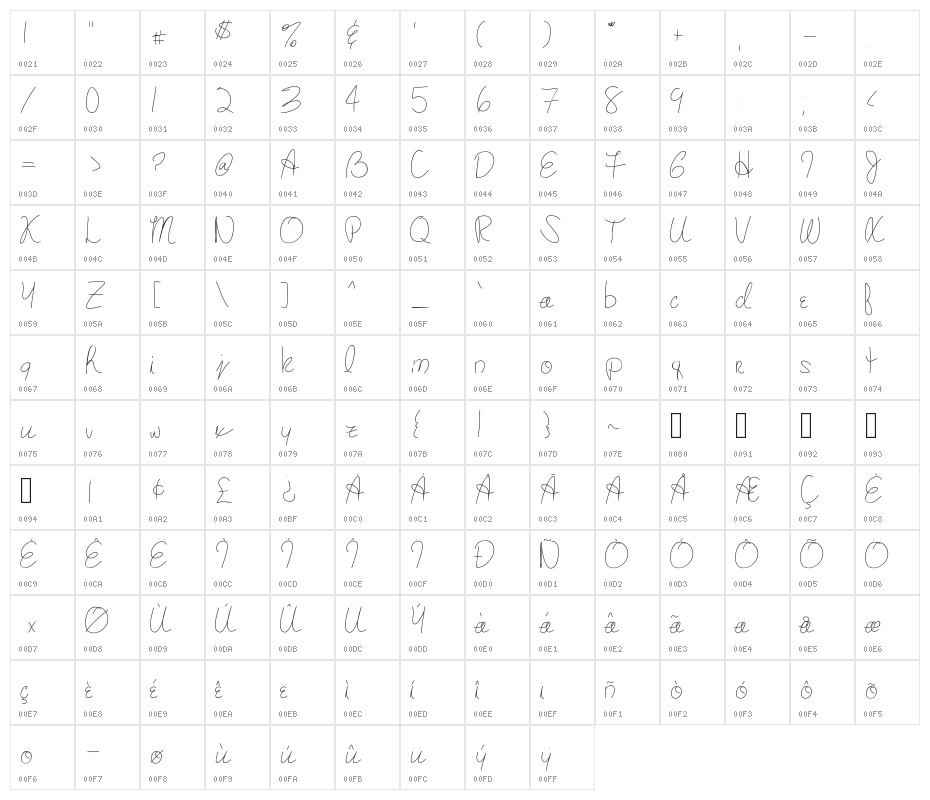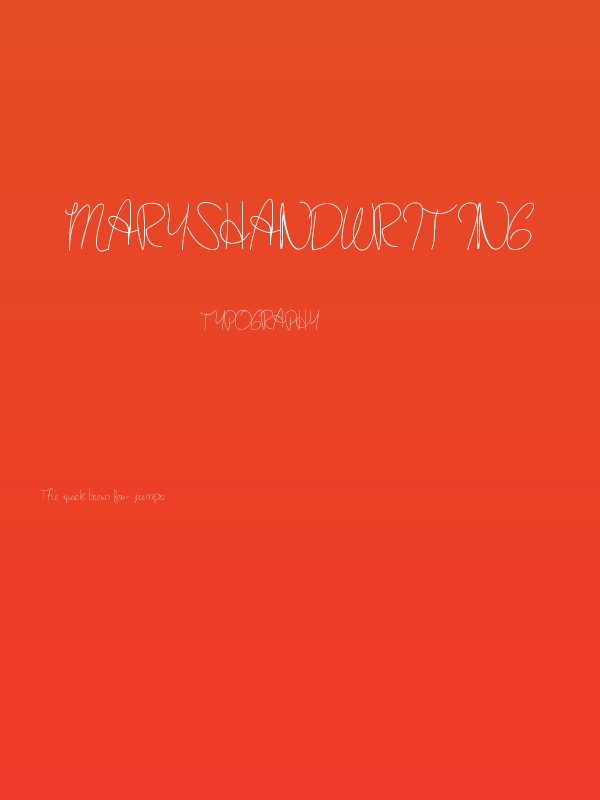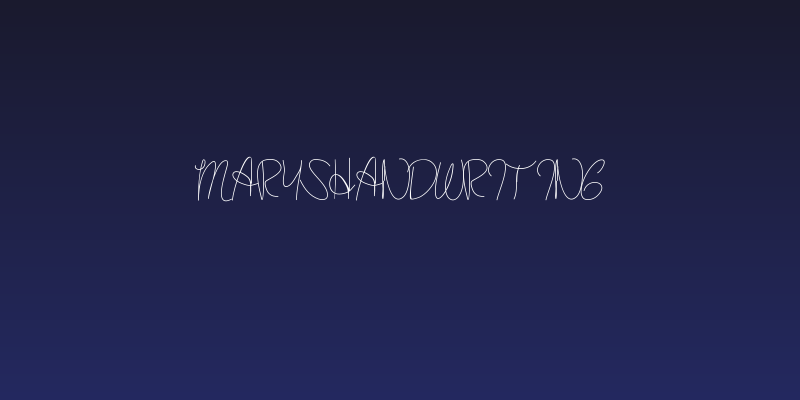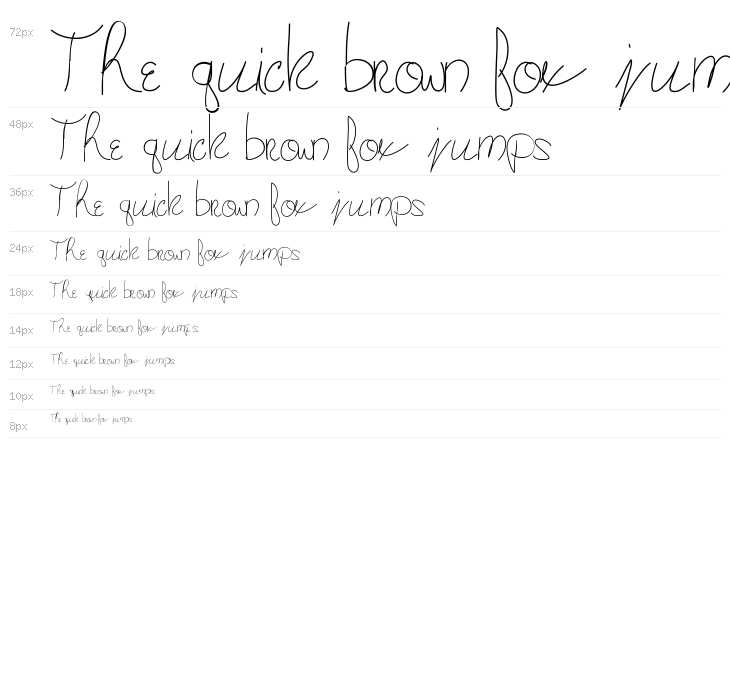
maryshandwriting Font
maryshandwriting Description
This font exudes a casual and personal touch, reminiscent of authentic handwriting. The letters are fluid and connected, with a natural flow that mimics the strokes of a pen. The uppercase letters are tall and slightly slanted, while the lowercase letters maintain a consistent height, adding to the handwritten aesthetic. The numerals are clear and easy to read, maintaining the same organic style. Special characters are included, each crafted with the same attention to detail, ensuring they blend seamlessly with the rest of the font. The overall appearance is both approachable and stylish, making it suitable for projects that require a personal or informal tone.
| Overall Style | Casual, Personal |
| Use Case | Invitations, Personal notes, Informal branding |
| Proposed Projects | Ideal for personal notes, invitations, greeting cards, and informal branding. |